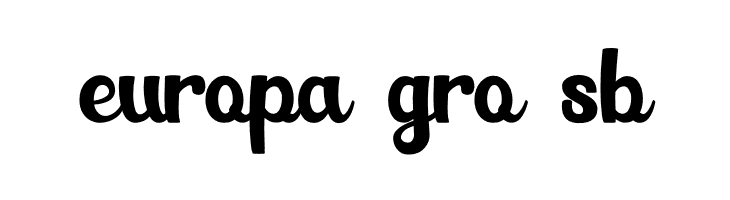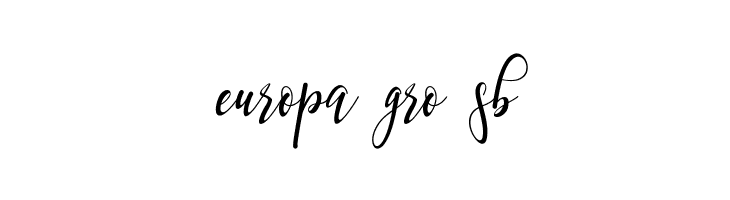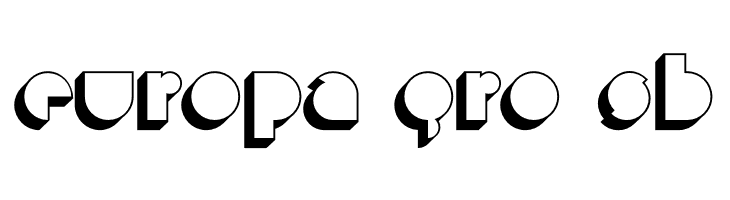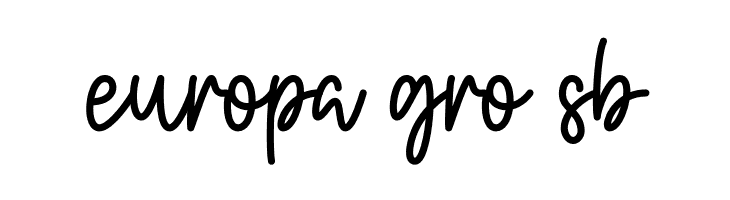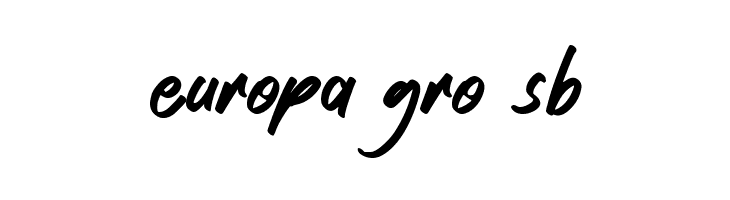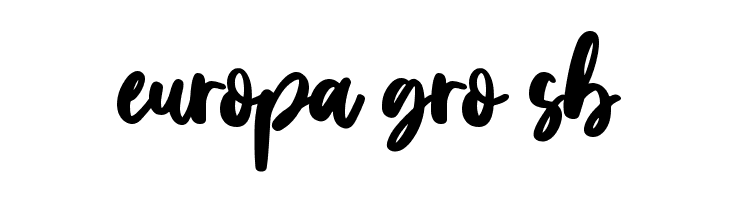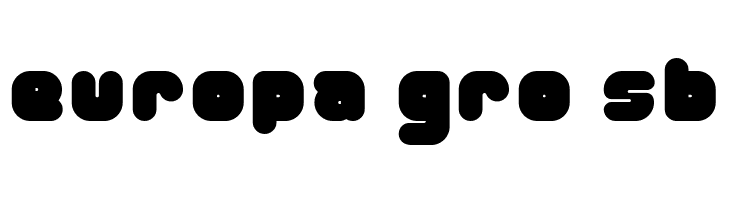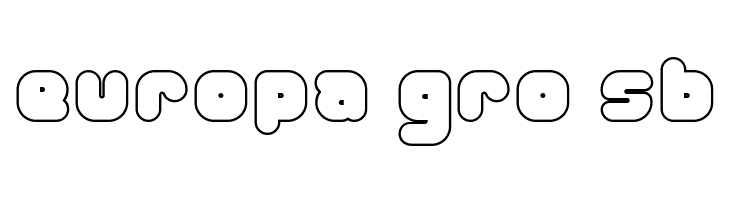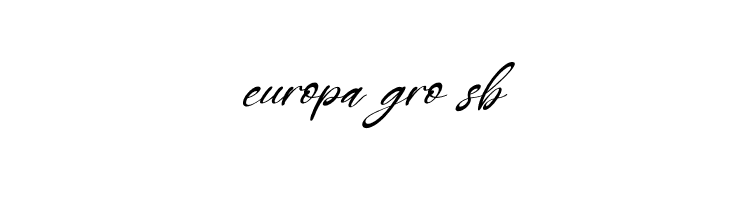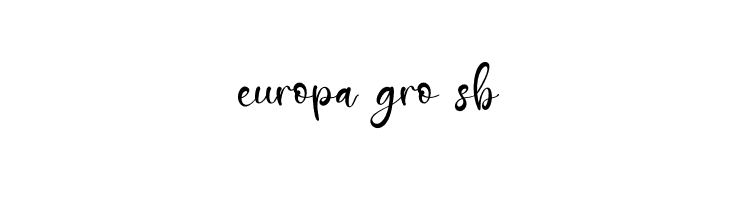
A bold, playful handwritten font with rounded, consistent strokes.
A graceful script font with flowing, cursive letterforms.
A bold, geometric font with a 3D shadow effect and modern style.
A bold, playful font with rounded edges and a retro vibe.
A playful, hollow font with rounded edges and a whimsical design.
An elegant, italic script font with flowing, handwritten strokes.
A lively, expressive script font with a fluid, handwritten style.